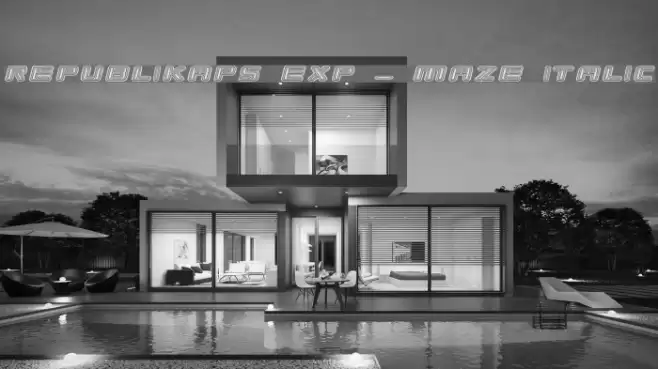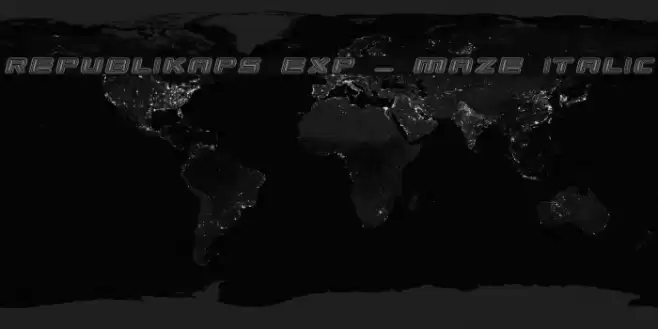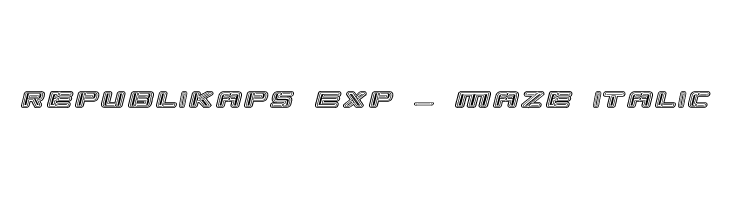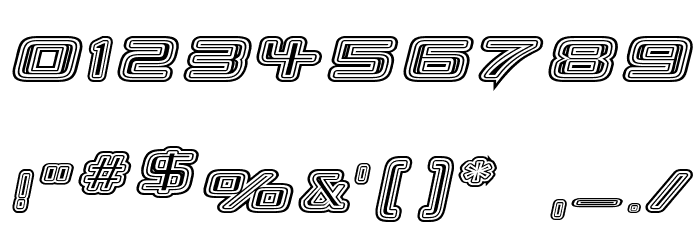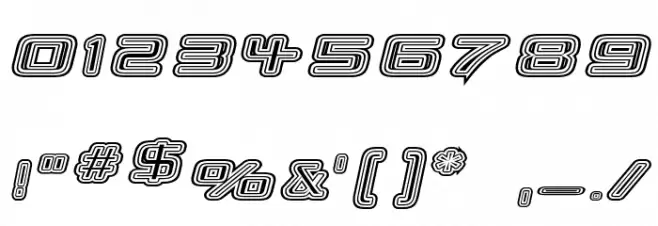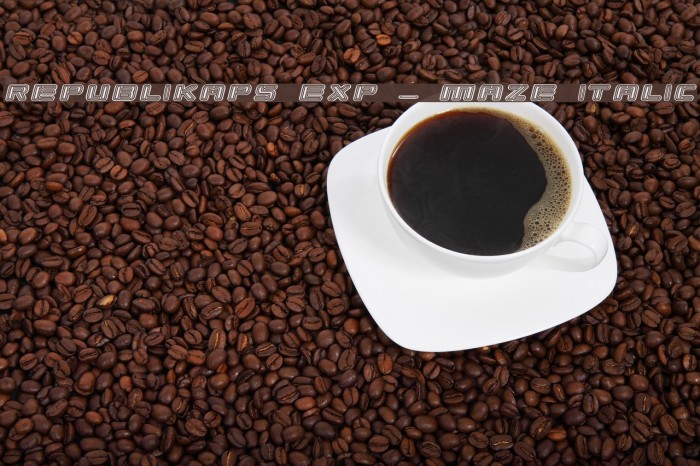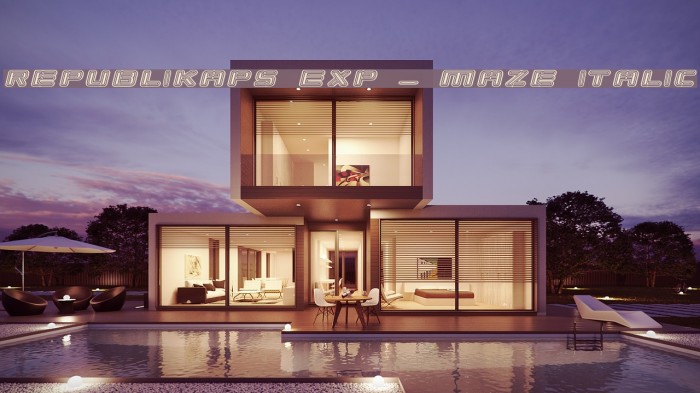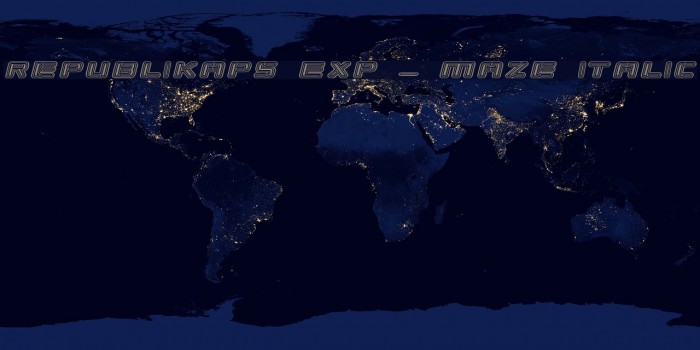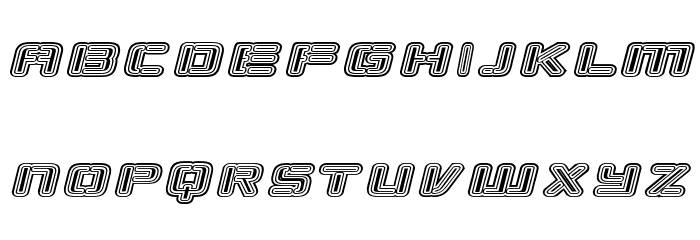
Republikaps Exp - Maze Italic Font
Republikaps Exp - Maze Italic Description
This font features a unique, maze-like design with a modern and futuristic aesthetic. Each character is composed of multiple parallel lines that create a three-dimensional effect, giving the impression of depth and complexity. The uppercase and lowercase letters maintain a consistent style, with angular edges and geometric shapes. Numbers and special characters follow the same intricate pattern, ensuring a cohesive look across all glyphs. The font's structure is bold and eye-catching, making it ideal for projects that require a standout visual element.
A modern, maze-like font with a bold, three-dimensional appearance from Uncategorized fonts.
- Proposed Projects: Ideal for branding, posters, album covers, and any project that requires a futuristic and bold design.